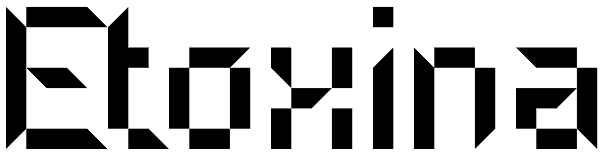
Etoxina
Etoxina is designed especially for the burgeoning market of starships and other space cruisers. Etoxina has been developed with the contribution of experts in navigation through space and time. The fonts are ideal for internal and external use...